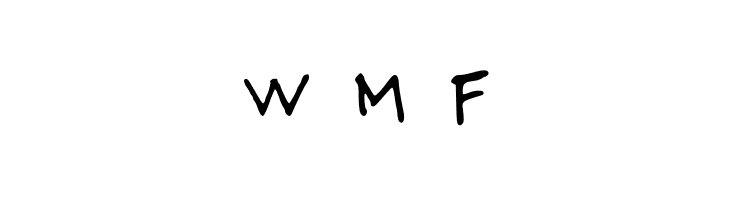
A modern, playful font with bold characters and high contrast.
A playful, hand-drawn font with whimsical, cartoonish elements.
Whimsical display font using doll silhouettes as characters.
A cursive, handwritten-style font with fluid, connected letters and dynamic stroke variations.
A decorative set of wedding-themed dingbats featuring couples, rings, and celebratory icons.
A decorative dingbat set featuring playful and whimsical illustrations.
A playful, casual handwritten font with irregular, flowing letterforms.
A playful, hand-drawn font with bold, sketchy characters.
A decorative font with characters encased in heart shapes, ideal for romantic themes.
A playful, hand-drawn font with irregular strokes and whimsical charm.
Whimsical cat illustrations replace standard alphanumeric characters.
A whimsical, floral-adorned font with a playful and artistic style.
A decorative font featuring unique doll figures for each character.
A playful, hand-drawn font with dotted embellishments.
Whimsical dingbat font with fairy illustrations.
A playful, heart-adorned font with a hand-drawn style.
Holiday-themed bear illustrations as font glyphs.
A decorative insect-themed dingbat font with detailed illustrations.
A bold, expressive handwritten font with a casual and artistic style.
A bold, modern font with thick strokes and a commanding presence.
St. Patrick's Day-themed dingbat font with festive illustrations.
Whimsical dingbat font with diverse turtle illustrations.
A decorative font with African-inspired patterns and silhouettes.
Primitive, hand-drawn glyphs reminiscent of ancient rock art.
A bold, decorative font with a unique patterned fill, perfect for eye-catching designs.
A bold, geometric font with a dynamic and modern style.
Animal silhouette font with African wildlife motifs.